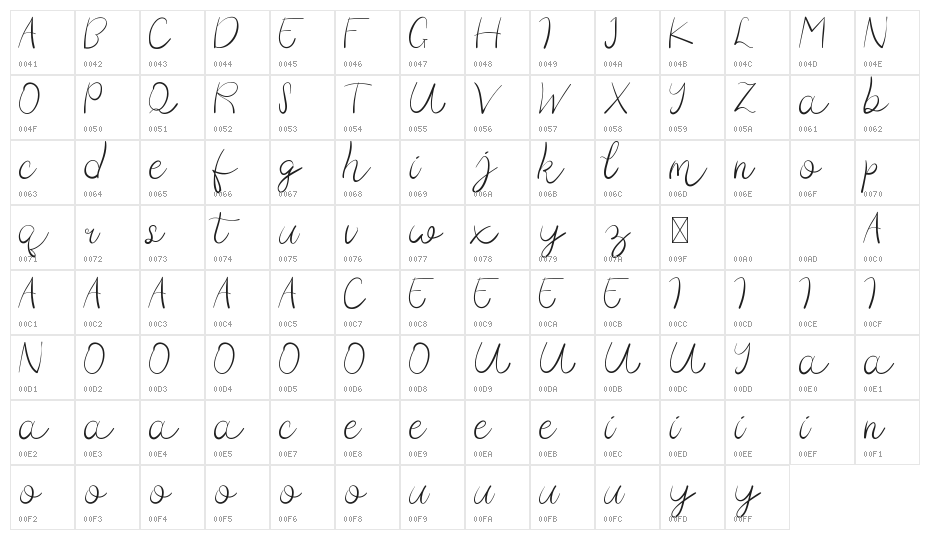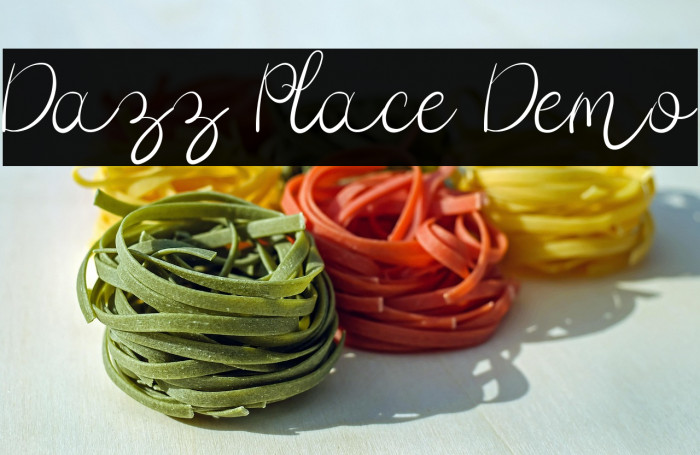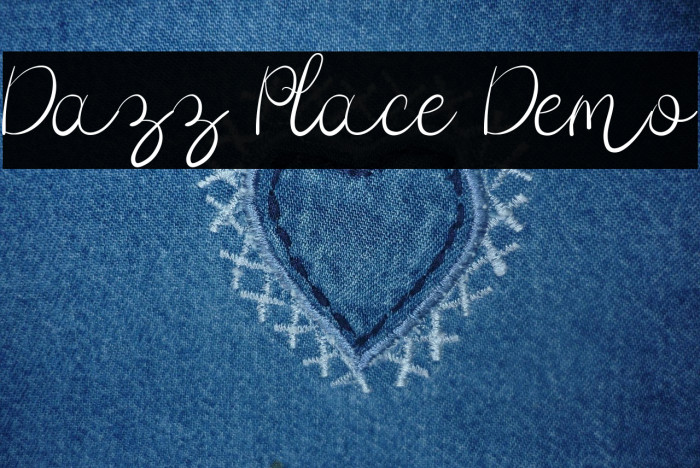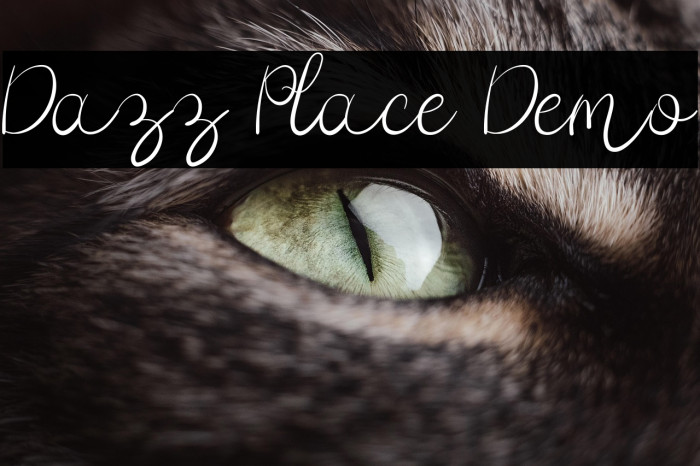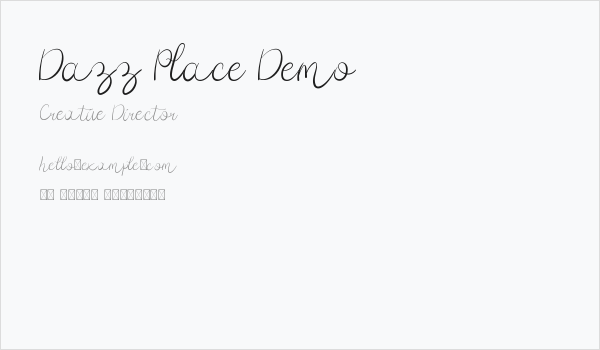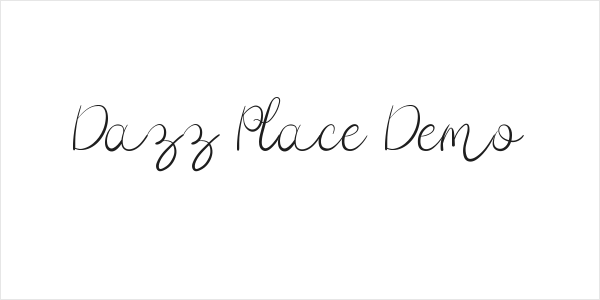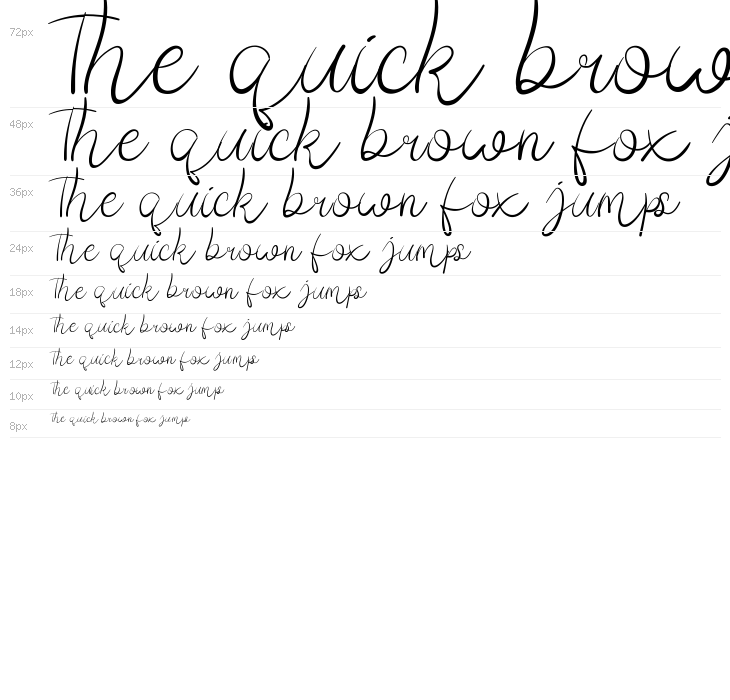
Dazz Place Demo Font
Dazz Place Demo Description
This font features a playful and elegant script style, characterized by its flowing, cursive letterforms. The strokes are smooth and connected, giving it a handwritten feel that is both casual and sophisticated. The uppercase letters are tall and slender, with a slight slant that adds to the dynamic nature of the font. The lowercase letters maintain the same fluidity, with some letters featuring loops and swashes that enhance its decorative appeal. The overall design is airy and light, making it suitable for projects that require a touch of elegance and personality.
| Proposed Projects | Ideal for wedding invitations, greeting cards, personal branding, and decorative quotes. |